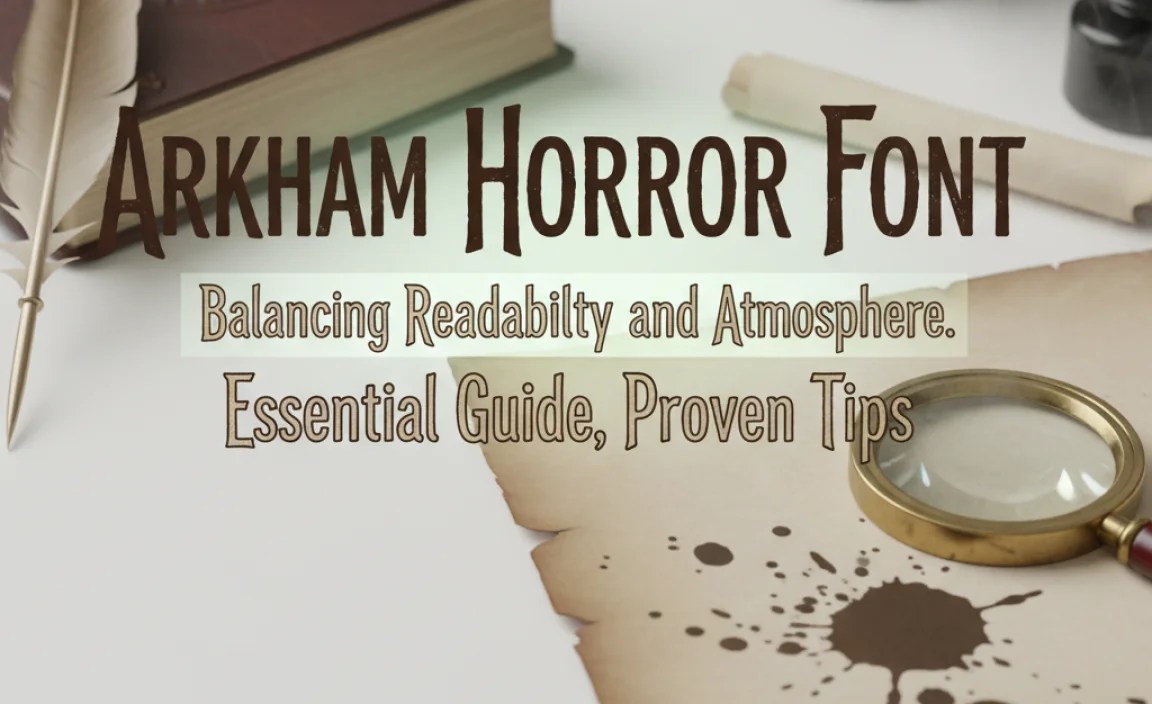
Quick Summary:
The “Arkham Horror Font” isn’t a single official typeface, but a style evoking the cosmic dread and vintage aesthetic of H.P. Lovecraft’s universe. To capture this look, designers combine distressed, serif, and subtly eerie fonts, often with a touch of old-world charm or a hint of decay.
The world of H.P. Lovecraft’s Arkham Horror is steeped in a unique atmosphere – one of impending doom, ancient secrets, and a palpable sense of unease. Capturing this eerie essence in design, especially through typography, can be a challenge. Many creators grapple with finding that perfect font that screams “cosmic horror” and “vintage investigation” all at once. If you’ve ever scrolled through fonts feeling lost, wondering how to evoke that signature Arkham vibe, you’re not alone. Don’t worry, we’ll guide you through the essentials, offering proven tips to help you nail the Arkham Horror font style, no matter your design project. Get ready to infuse your creations with a touch of Eldritch mystique!
Understanding the “Arkham Horror Font” Vibe
When we talk about an “Arkham Horror Font,” we’re not usually referring to one specific, officially licensed typeface. Instead, it’s a descriptive term for a collection of typographical elements that collectively evoke the distinctive mood and thematic elements of the Arkham Horror universe. This universe, born from the mind of H.P. Lovecraft and brought to life in board games, video games, and literature, relies heavily on atmosphere. This atmosphere is a blend of:
- Cosmic Dread: A sense of insignificance in the face of vast, unknowable cosmic entities.
- Vintage Academia/Mystery: The early 20th-century setting, often featuring dusty libraries, old manuscripts, and scholarly pursuits.
- Gothic Undertones: A subtle creepiness, hints of the grotesque, and a sense of decay or ancient ruin.
- Handwritten Intrigue: The feel of personal journals, secret notes, and hastily scrawled warnings.
Therefore, the “Arkham Horror Font” style embraces fonts that are often:
- Serif-heavy: Traditional serif fonts can lend an air of antiquity and formality, fitting the academic and vintage aspects.
- Distressed or Textured: A slightly worn, aged, or imperfect look can suggest decay, old paper, or mysterious stains, enhancing the horror element.
- Slightly Unsettling: Some fonts might have slightly sharper edges, unusual spacing, or a subtle slant that hints at unease without being overtly “scary.”
- Monochromatic or Muted: While not a font characteristic itself, the typical color palettes associated with Arkham Horror (dark blues, browns, greys, muted reds) influence how fonts are perceived.
Think of it as a visual language that speaks of Lovecraft’s Miskatonic University, shadowy cults, and sanity-bending encounters. It’s an aesthetic that balances erudition with encroaching madness.
Key Font Characteristics for the Arkham Horror Aesthetic
To recreate the Arkham Horror feel in your designs, focus on fonts that share specific characteristics. These aren’t rigid rules, but rather guidelines that help you choose typefaces that harmonize with the theme. Here’s a breakdown of what to look for:
1. Serif Fonts with Character
Serifs – the small decorative strokes at the ends of letterforms – can lend an immediate air of tradition and sophistication. For the Arkham Horror style, opt for serif fonts that aren’t too modern or clean. Look for:
- Old Style Serifs: These have a calligraphic feel, with angled stress and bracketed serifs. Think of fonts like Garamond or Caslon. They evoke a sense of time and artisanal craftsmanship.
- Transitional or Modern Serifs (Used Carefully): While often sharper, some transitional serifs can work if paired with distressed elements, providing a slightly more formal but still moody feel.
- Slightly Condensed or Extended Forms: Dramatic proportions can add a touch of the unusual, hinting at the alien or unsettling.
2. Distressed and Textured Fonts
This is where the “horror” and “decay” elements really come into play. Fonts that appear damaged, worn, or imperfect are crucial for conveying a sense of age, neglect, or the ravages of eldritch forces. These can manifest as:
- Grunge or Stencil Fonts: Many fonts designed with a rough, scratched, or stenciled effect can mimic old official documents or equipment labels that have seen better days.
- Aged Paper Textures: Some fonts are designed to look as though they’ve degraded over time, with broken lines, missing pieces, or faded edges.
- Ink Bleed or Smudge Effects: Fonts that simulate the appearance of ink spreading or smudging on parchment can add a mysterious, almost organic imperfection.
3. Handwriting and Script Fonts (with Caution!)
Personal accounts, journal entries, and cryptic notes are often represented by handwriting. However, not all script fonts fit the Arkham mood. You’ll want to look for:
- Inkwell or Quill Style Scripts: Fonts that mimic traditional writing instruments can add an authentic period feel.
- Slightly Imperfect or Rough Scripts: Avoid overly polished, modern, or flourish-heavy script fonts. Look for something that feels more natural, perhaps a bit shaky or hurried, like someone frantically documenting a terrifying discovery.
Resources like Arkham Central often showcase fan works that meticulously craft this atmosphere through typography and design.